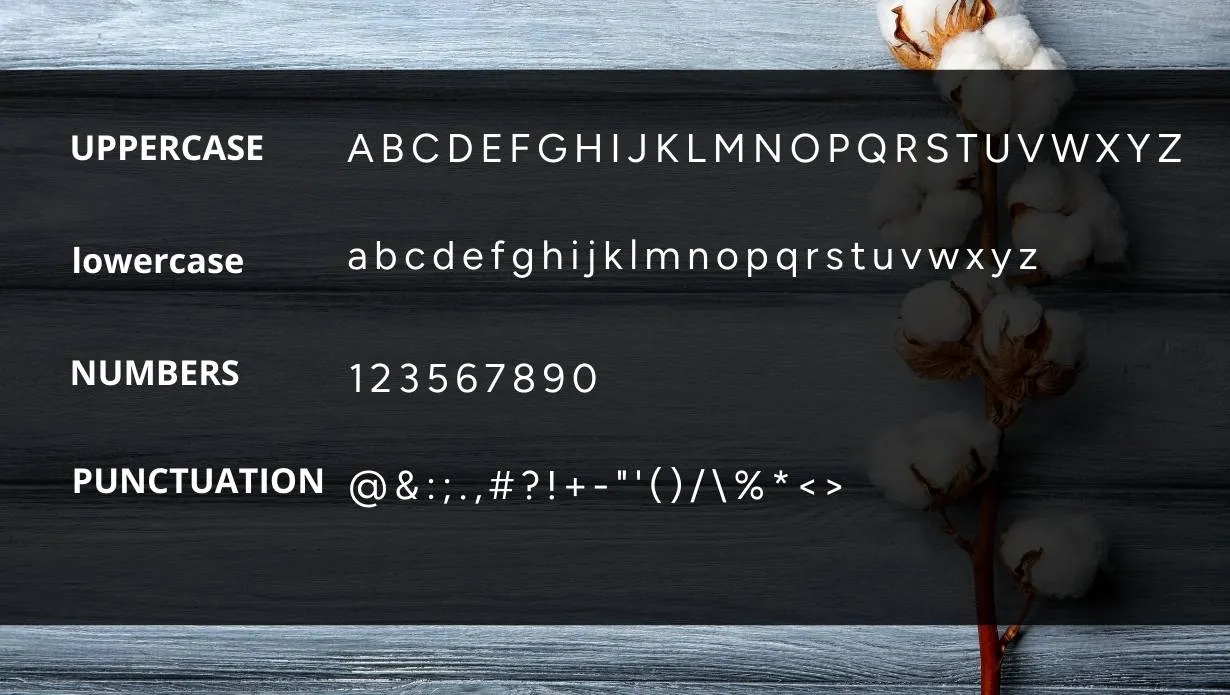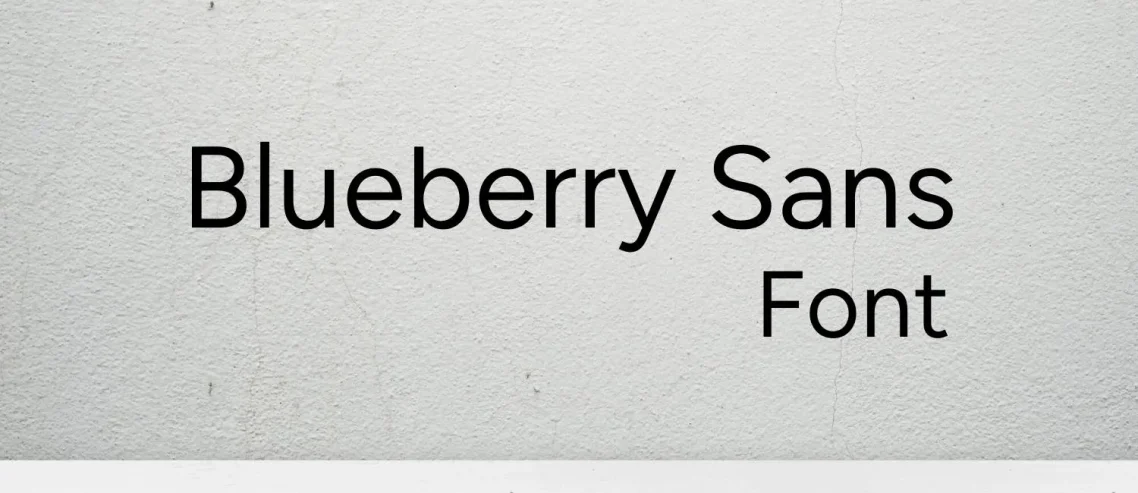
Blueberry Sans Font is a sans serif typeface designed by Sjoerd De Jong. The design is based on the proportions of the human body and the Golden Section. The typeface was released in 2009 and has since been used by many publications, including The New York Times, Wall Street Journal, Washington Post, and Harvard Business Review.
The typeface all weight includes Opentype features and Truetype features, it has a pairing personality with sf ui text font.